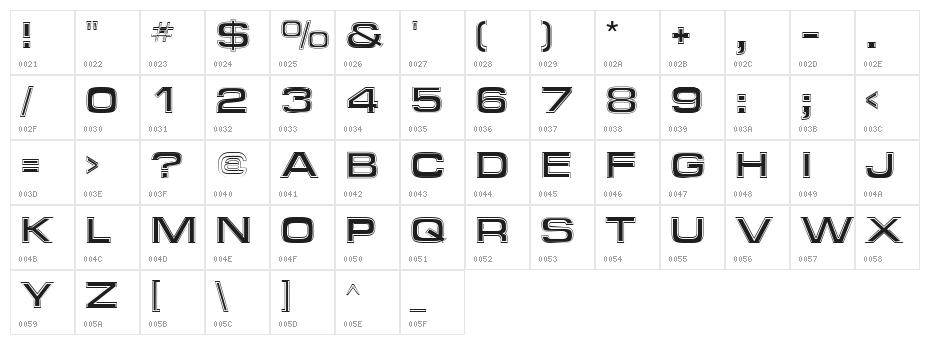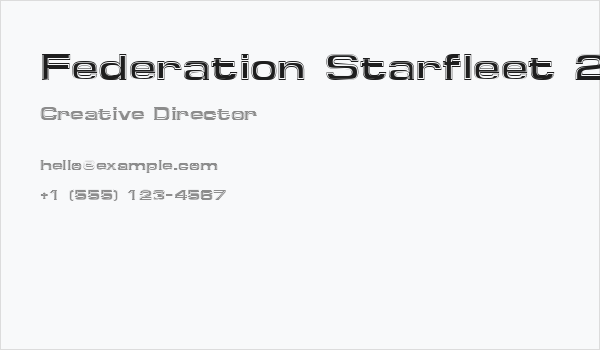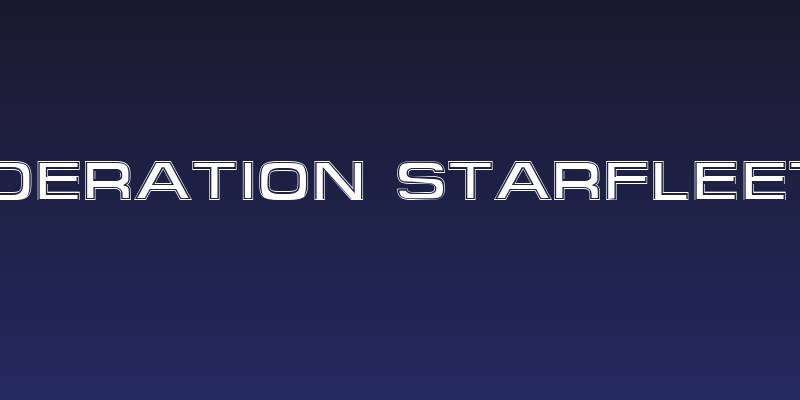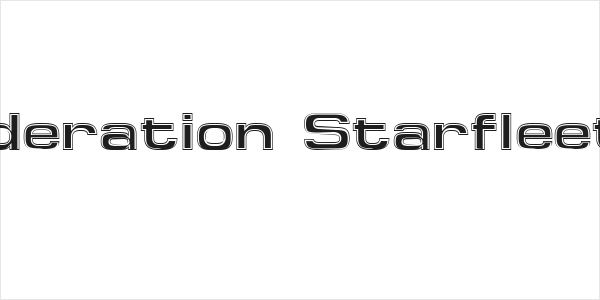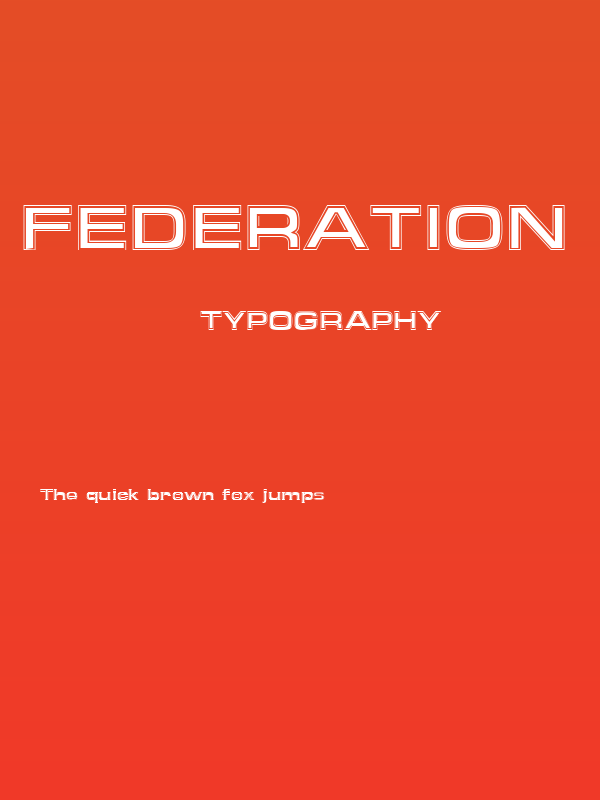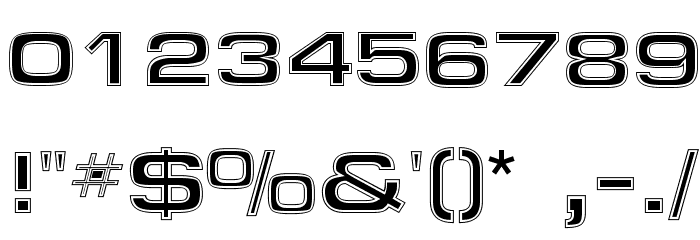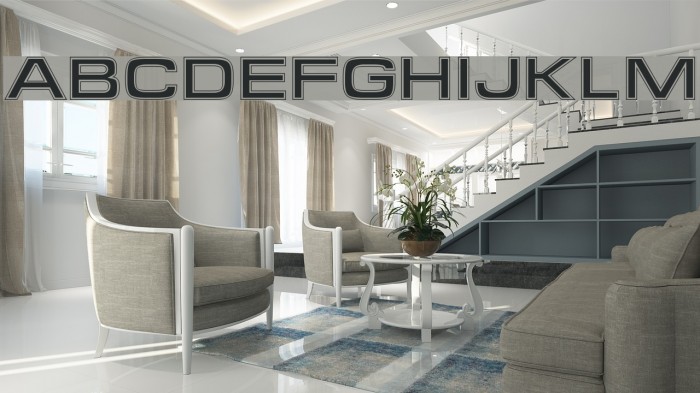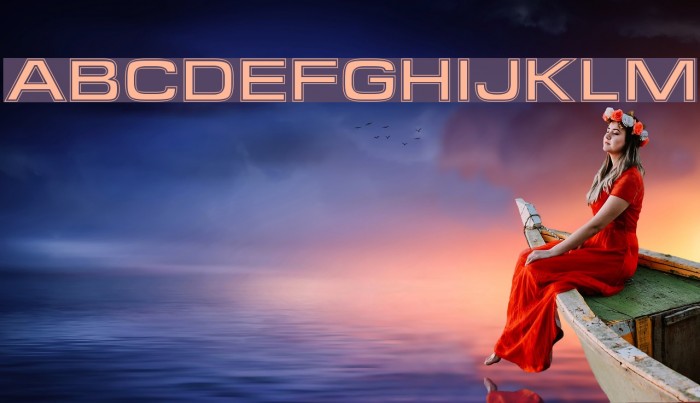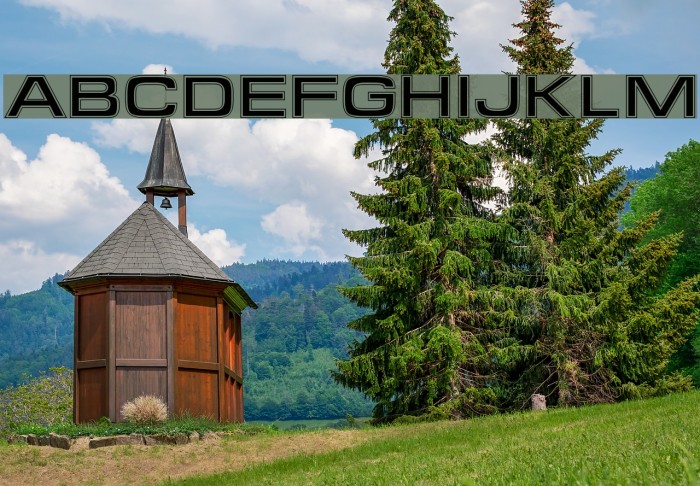
Federation Starfleet 2 Font
Federation Starfleet 2 Description
This font features a futuristic and sleek design, characterized by its bold and geometric letterforms. The uppercase and lowercase letters maintain a consistent width, creating a uniform appearance. The font includes a full set of numerals and a variety of special characters, making it versatile for different applications. The outlines of the characters are distinct, adding a modern and technological feel. The overall style is reminiscent of science fiction themes, making it ideal for projects that require a contemporary and innovative look.
| Proposed Projects | Ideal for sci-fi themed projects, technology branding, video game titles, and futuristic posters. |